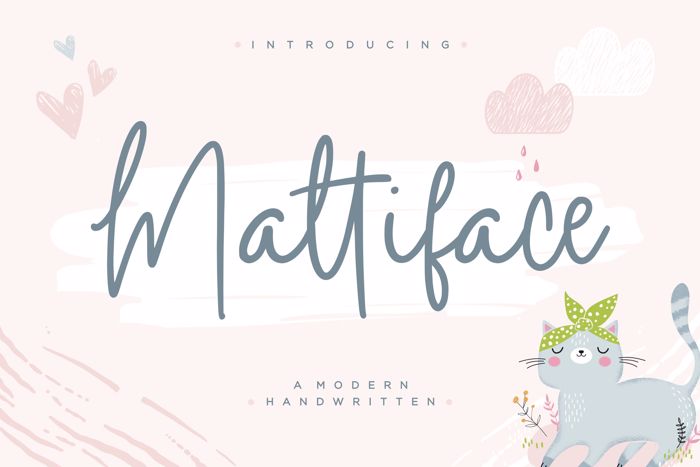
mattiface Font
Proudly Present, Mattiface Font.
Mattiface is a Modern Handwritten font.
Mattiface is perfect for product packaging, branding project, megazine, social media, wedding, or just used to express words above the background.